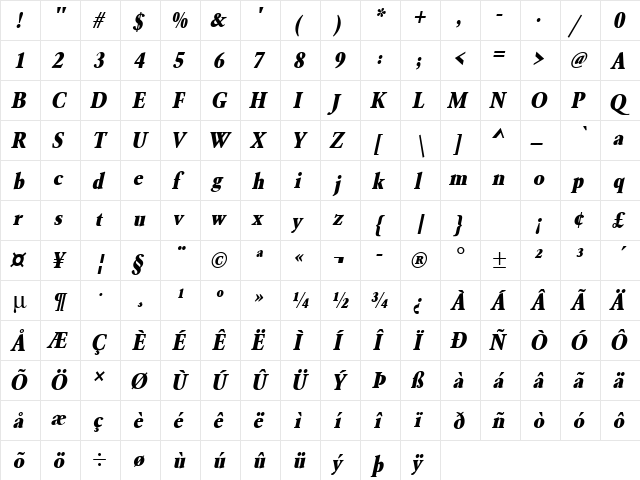
URWGaramondTExtBolExtNar Oblique
Design Context for URWGaramondTExtBolExtNar Typeface
URWGaramondTExtBolExtNar is a composed and adaptable typeface that performs quietly and consistently across a wide range of design contexts. The slanted form adds forward momentum and visual energy.
Pro Tip: Use URWGaramondTExtBolExtNar for emphasis, pull quotes, and subheadings where its slanted energy can add rhythm to the layout.